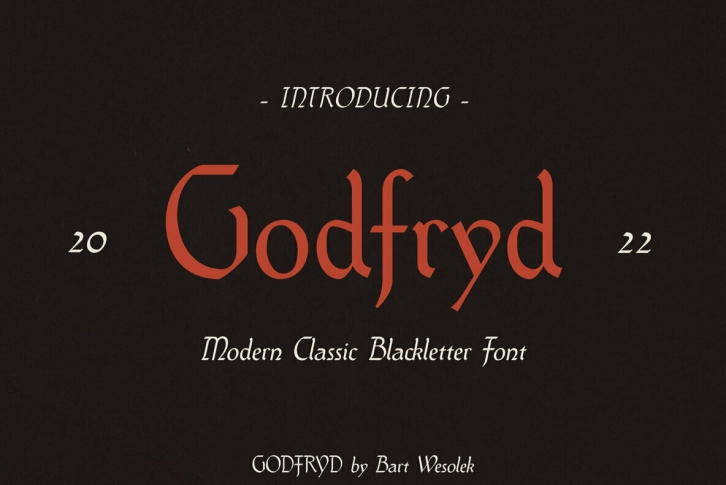
Gotfryd is a blackletter font based on classic medieval and serif fonts. Its style is a mix between modern retro medieval fonts from XX century. Godfryd is cool to mix with other sans and serif fonts for great branding, labels, letterings, logos and more.